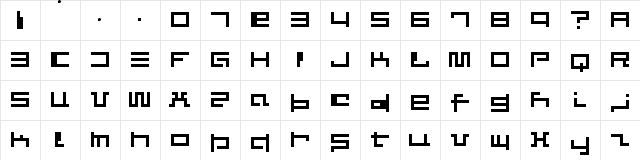
ERRO8 Regular
| Designer | erro |
Design Context for ERRO8 Typeface
ERRO8 is a composed and adaptable typeface that performs quietly and consistently across a wide range of design contexts.